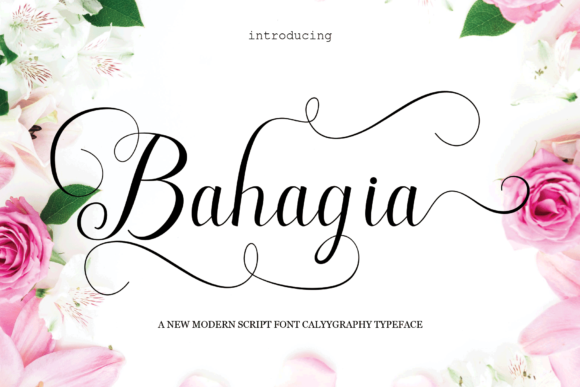
Immerse yourself in the world of Bahagia Font, a captivating script font that exudes both playfulness and elegance. Step into a realm of infinite creative possibilities with this versatile calligraphy font, meticulously crafted to add a touch of sophistication to every design. From the delicate strokes of wedding invitations to the bold statements of branding, Bahagia Font is the perfect companion for your artistic journey.
With Bahagia Font, you hold the key to unlocking a treasure trove of stunning glyphs and swashes, effortlessly accessible through PUA encoding. Unleash your creativity and let the font's wealth of special features, including alternate glyphs and ligatures, guide you towards design masterpieces.
Indulge in the beauty of Bahagia Font's meticulous detailing, where each letter dances across the page with grace and charm. Its elegant curves and playful flourishes evoke a sense of romance and whimsy, making it the perfect choice for capturing the essence of love and passion.
Bahagia Font, a creation of MYdesign, invites you to embark on a journey of artistic expression. Its versatility knows no bounds, seamlessly adapting to a multitude of design endeavors. Whether you seek to craft enchanting wedding invitations, establish a captivating brand identity, or simply add a touch of elegance to your personal projects, Bahagia Font is your trusted companion.
With Bahagia Font, you possess the power to transform your creative visions into stunning realities. Its user-friendly interface and comprehensive features empower you to effortlessly craft designs that resonate with your audience. Step into the world of Bahagia Font and let your creativity flourish like never before.